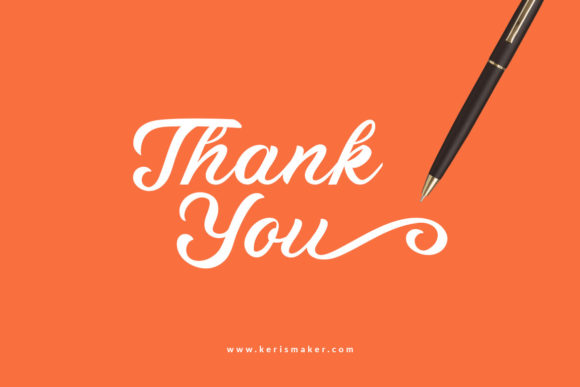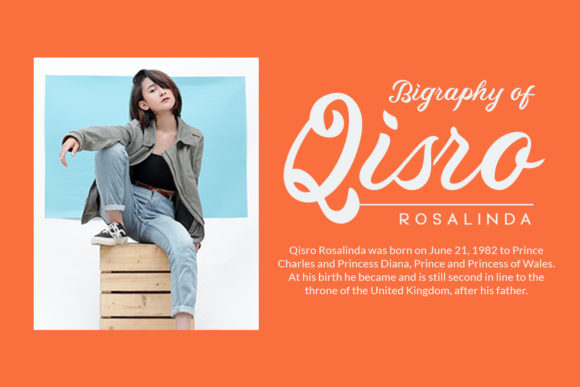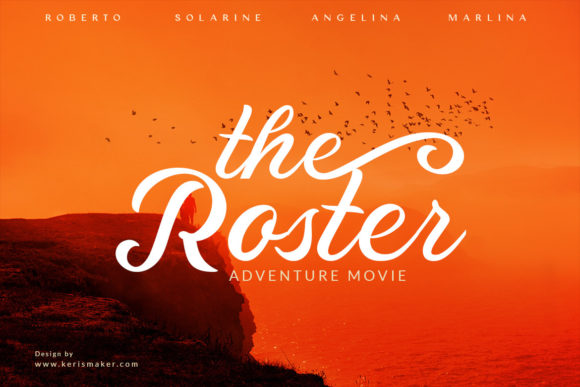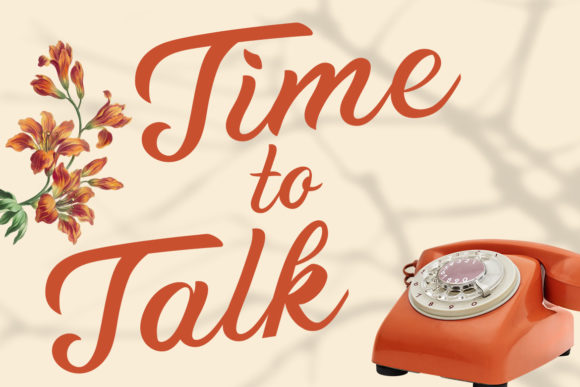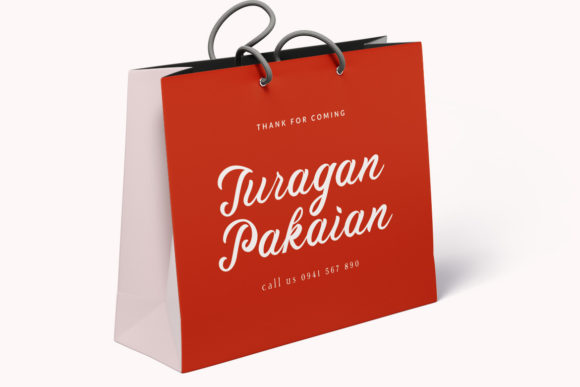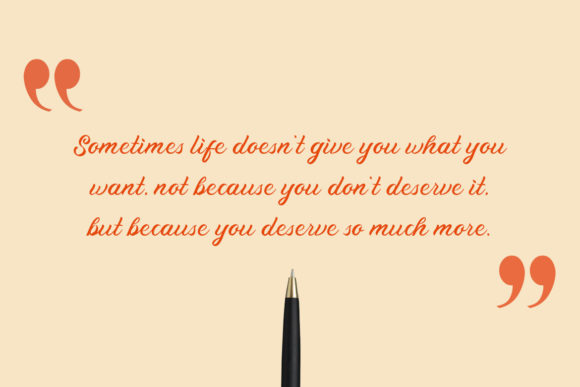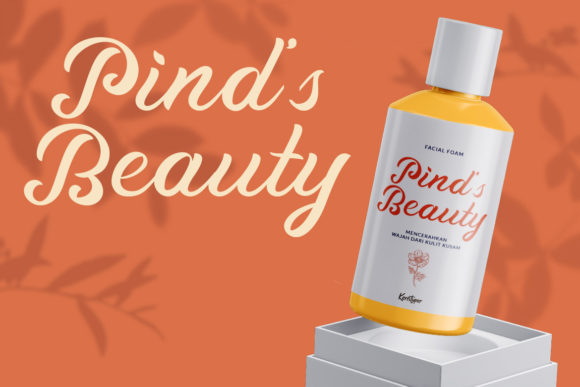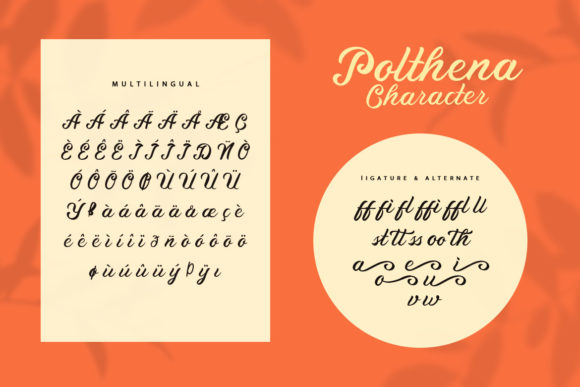
Polthena Font
About Polthena Font
Polthena is a gorgeous, refined script font. Its subtle shapes make this font suitable for all of your projects. Fall in love with its incredibly versatile style and use it to create spectacular designs!